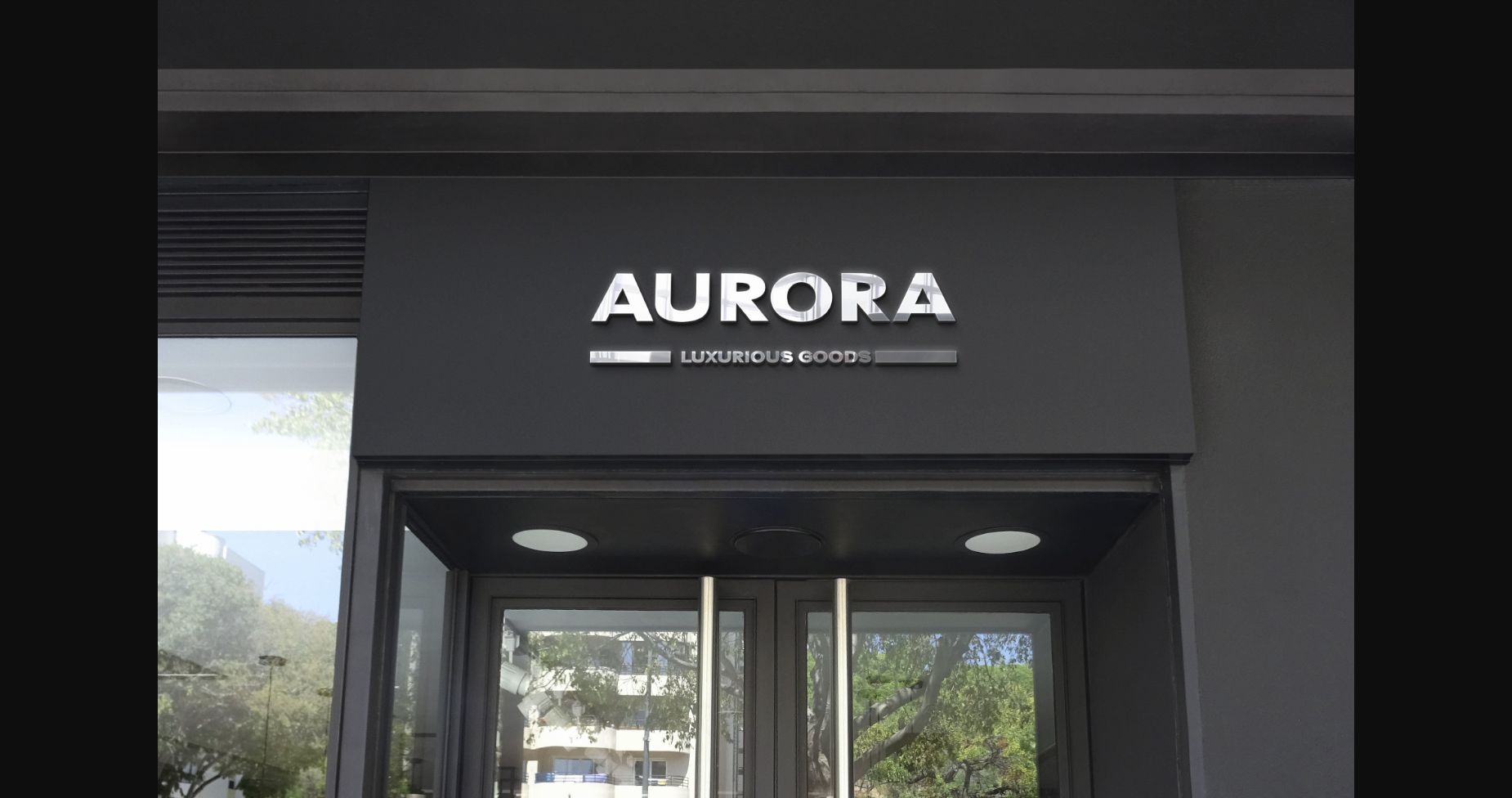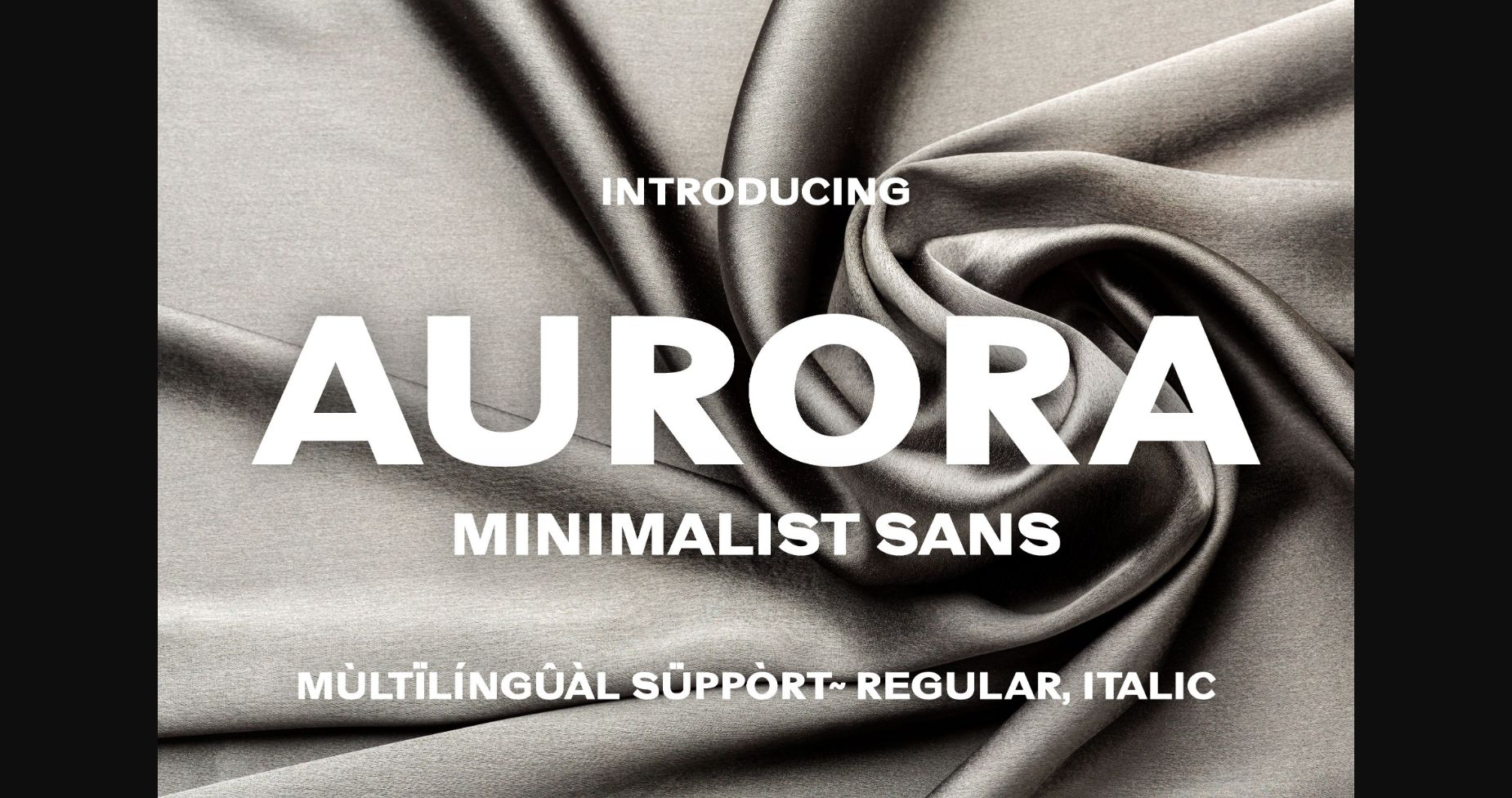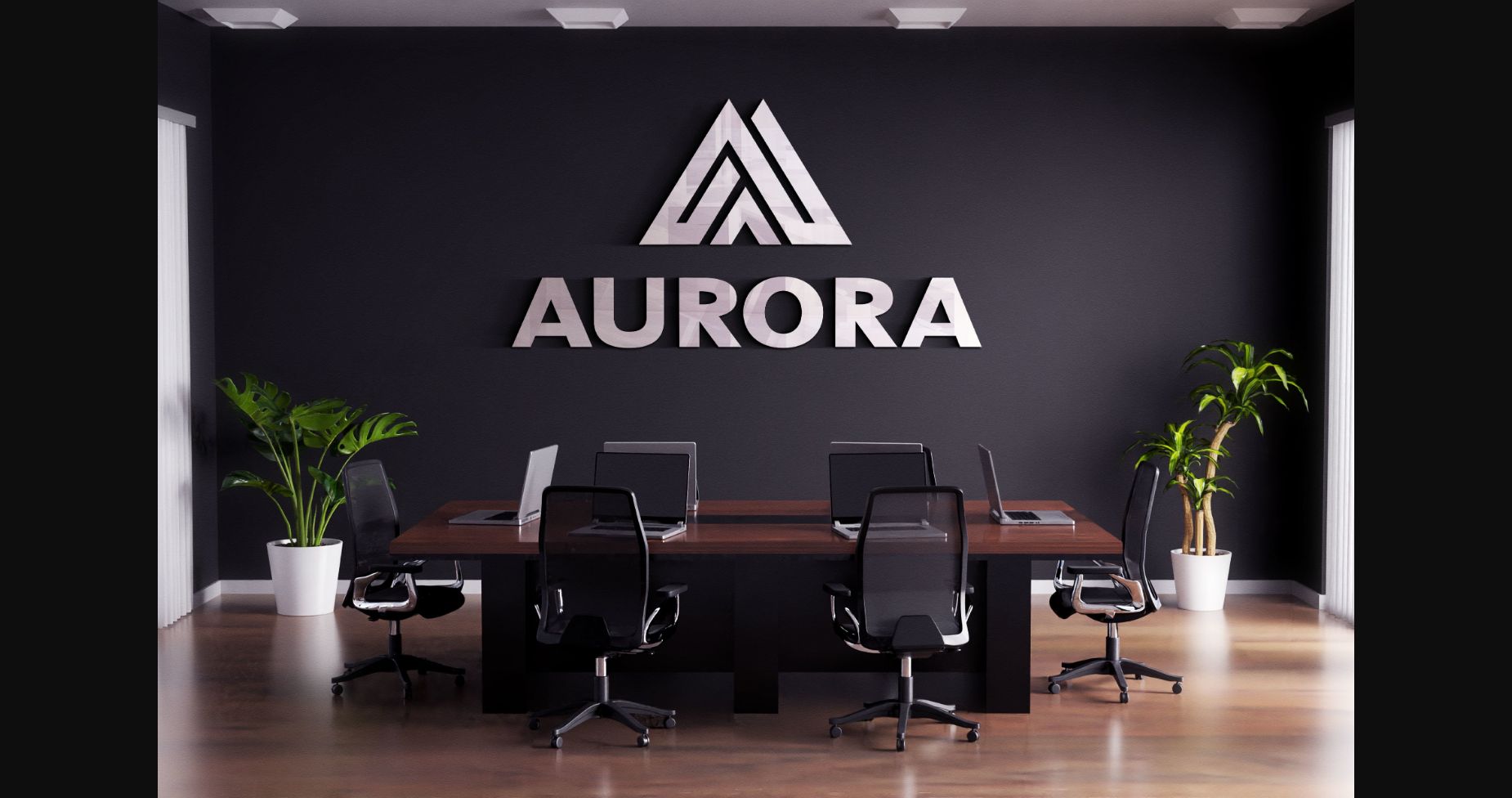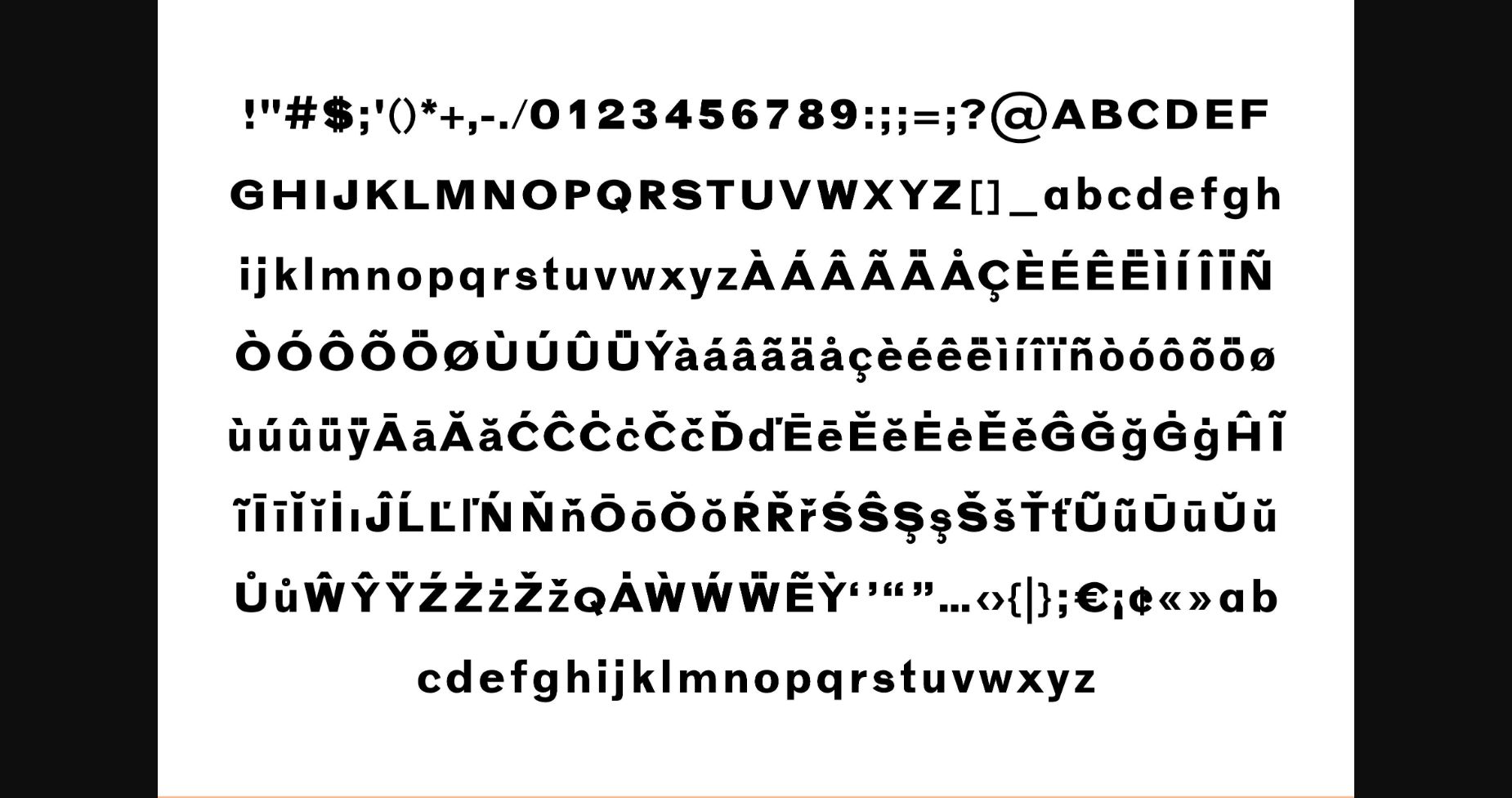
About Aurora Font
Aurora is a clean and elegant sans serif typeface. Its clean fat glyph construction renders it a valid choice when it comes to designing minimalistic luxurious graphics. Use it confidently in your creations, and you will notice how much power it can add to any context.